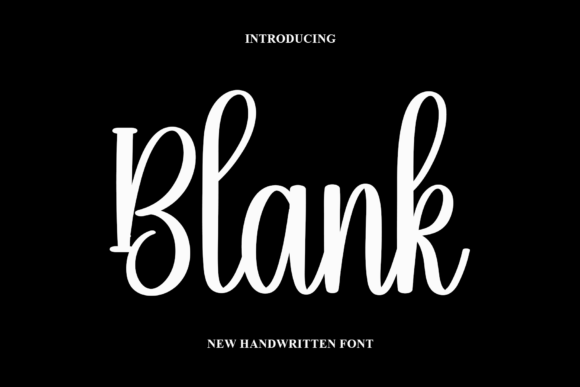
The Blank Font: A Friendly and Versatile Companion for Your Creative Projects
Have you ever been in the middle of a design project, and suddenly, you’re stuck on finding the perfect font? I recall a recent experience where I was working on a DIY craft project, and I needed a font that would bring a personal touch to my handmade cards. That’s when I stumbled upon the Blank font, a cute and casual handwritten font that has become my go-to companion for various creative endeavors.
A Personal Review: What I Love About Blank Font
The Blank font has won my heart with its incredibly friendly feel, making it perfect for a wide range of projects, from Instagram posts to calligraphy scripts for DIY crafts. Here are some aspects that I absolutely love about this font:
- ✨ Cute and Casual Aesthetic: The Blank font boasts a charming, handwritten look that’s perfect for adding a personal touch to your designs.
- ✅ Versatility: Its friendly feel makes it suitable for various projects, including social media graphics, craft projects, and even professional designs.
- 💡 Easy to Read: The font’s clear and legible design ensures that your message is conveyed effectively, even at smaller font sizes.
While the Blank font is an excellent choice for many projects, there are a few minor quirks to be aware of:
- 🤔 Limited Formality: Due to its casual nature, the Blank font might not be the best fit for projects requiring a high level of formality or professionalism.
- ⚠️ Glyph Limitations: As with any font, the Blank font may not have an extensive range of glyphs or special characters, which could limit its use in certain projects.
The Story Behind Blank Font
The Blank font was designed with the intention of creating a friendly, approachable typeface that could be used in a variety of creative projects. Its designer aimed to craft a font that felt both personal and versatile, making it perfect for DIY crafts, social media graphics, and more.
| Font Name | Blank Font |
| Author | ONE DESIGN |
| What makes the Blank font so special? | The Blank font’s unique blend of cuteness and friendliness makes it stand out. Its casual aesthetic is perfect for adding a personal touch to various projects. |
| Is the Blank font suitable for body text? | While the Blank font is primarily designed for display purposes, it can be used for short blocks of body text. However, for longer texts, a more traditional font might be more suitable. |